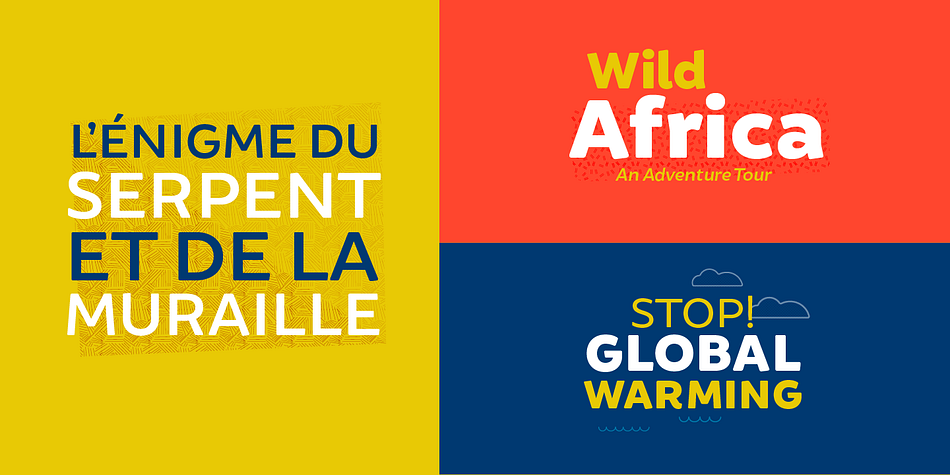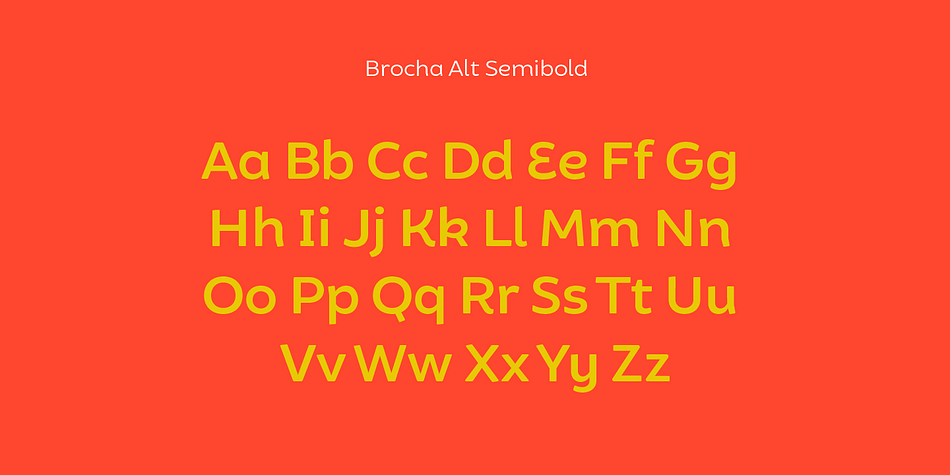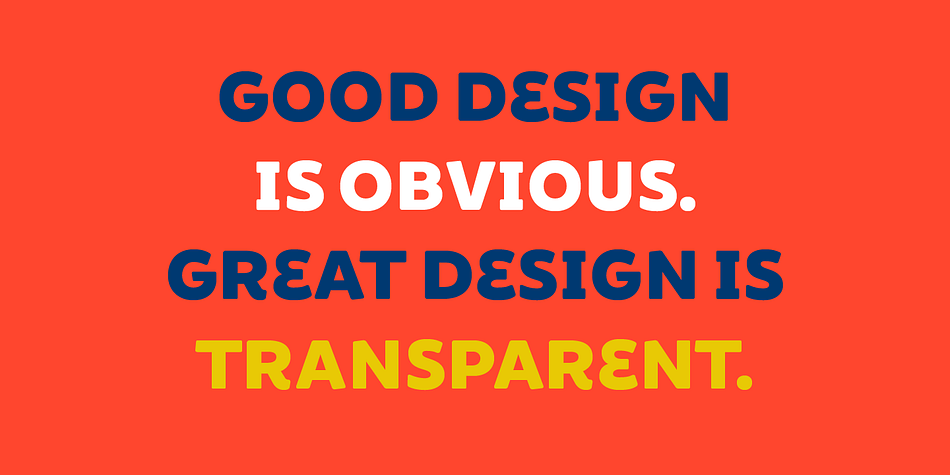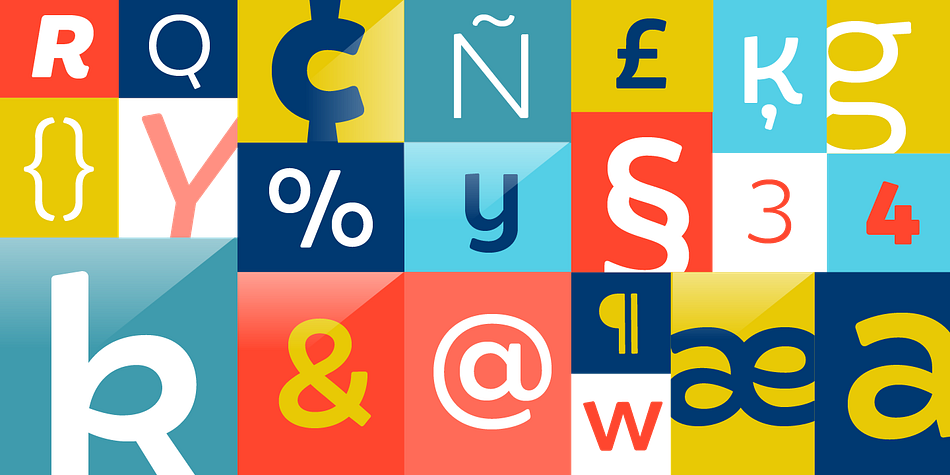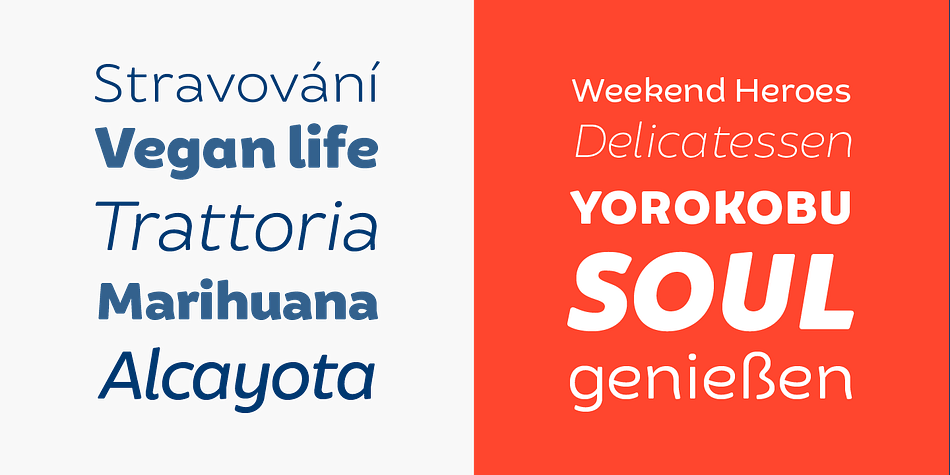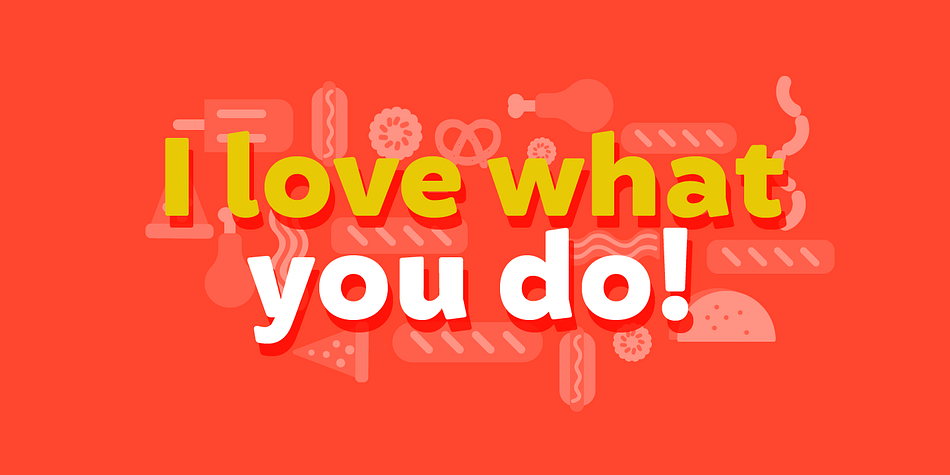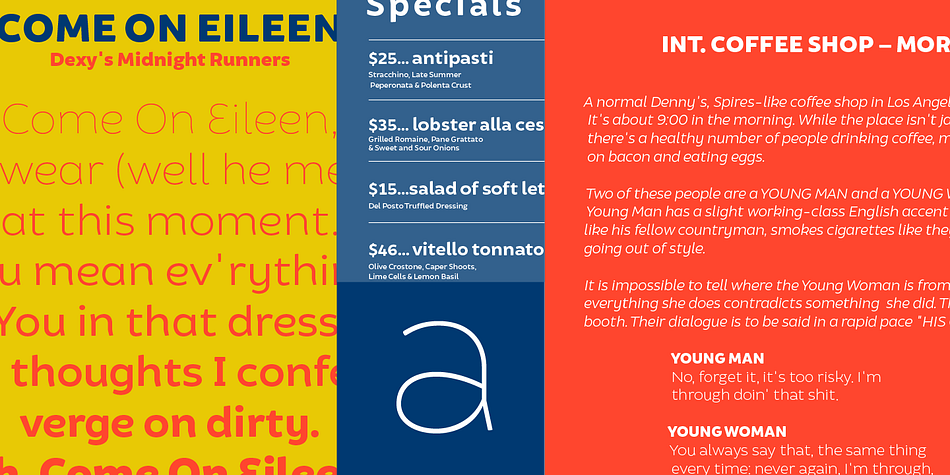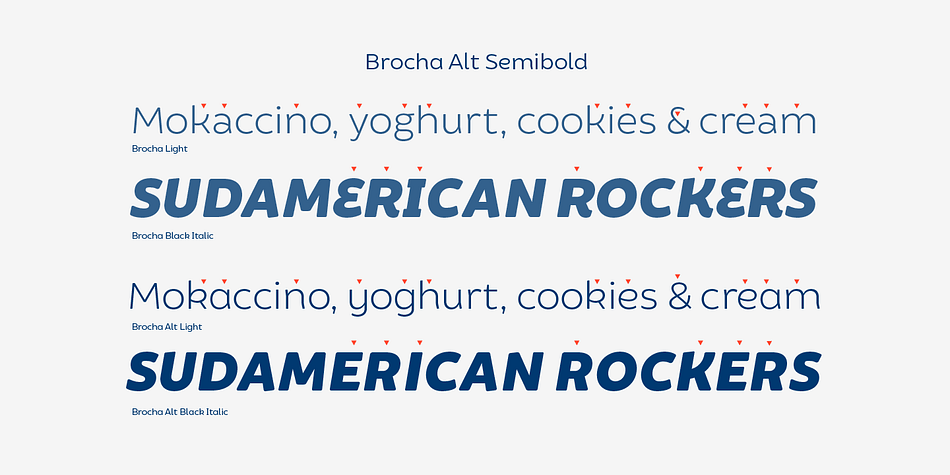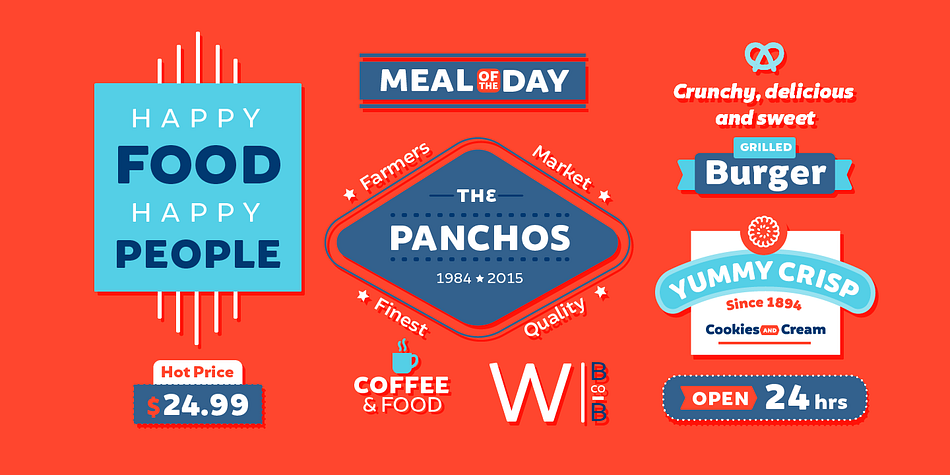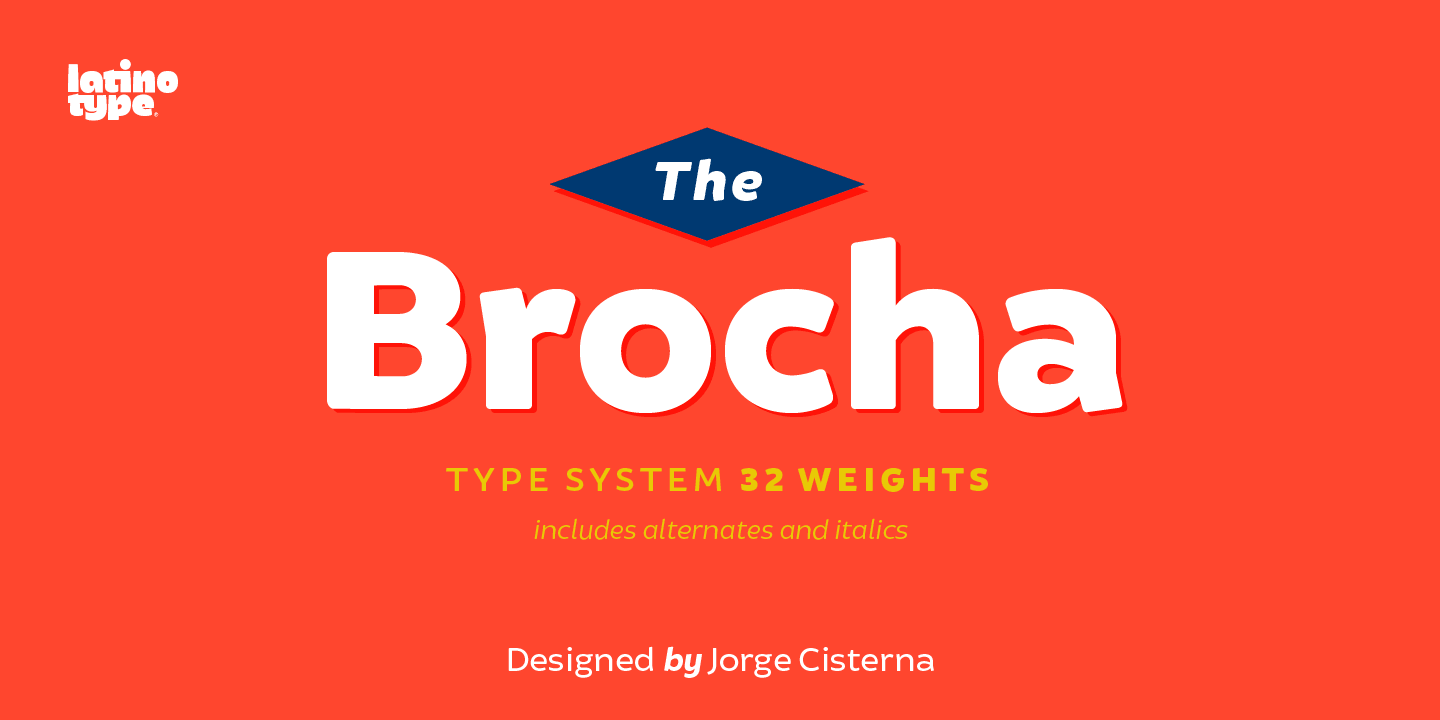
Designed by Jorge Cisterna, Brocha is a sans serif font family. This typeface has thirty-two styles and was published by Latinotype.
I made the first sketches for Brocha when I first visited Easter Island in 2011. I took inspiration from pre-Columbian art for suchsketches, but I must say that they were kind of rough and clumsy; it was an experimental, but limited-use typeface. It took a long time, but thanks to my learning about type design gained over the years, I have finally been able to resume my project. I have made sure to preserve the Latin American spirit of my original designs in order to give my final typeface an expressive handmade highly humanist look.
Brocha is a display sans with friendly design ideal for high-impact headlines, logotypes or use on cookies packaging designs. Brocha consists of 2 subfamilies: one basic and one alternative. Each subfamily comes in 8 weights plus italics. The Alt version is highly recommended for those art directors who look for more varied fonts when designing.